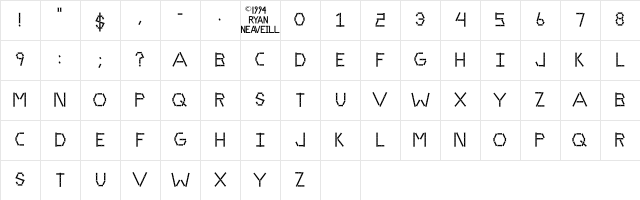
Bamboo Regular
Design Context for Bamboo
Bamboo is a composed and adaptable typeface that performs quietly and consistently across a wide range of design contexts.